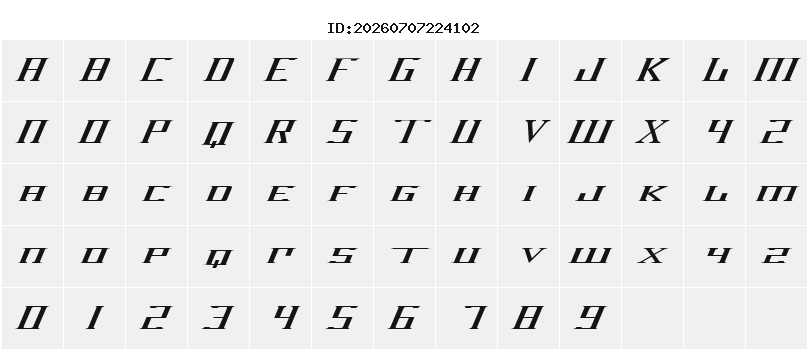
DarkWind Expanded Italic Preview
• Font Name: DarkWind Expanded Italic
• Font Style: Expanded Italic
• Full Font Name: DarkWind Expanded Italic
About DarkWind Expanded Italic.ttf
DarkWind Expanded Italic.ttf is a modern, elegant sans-serif font designed for ultimate readability and visual harmony. Perfect for branding, headlines, web design, and print materials.